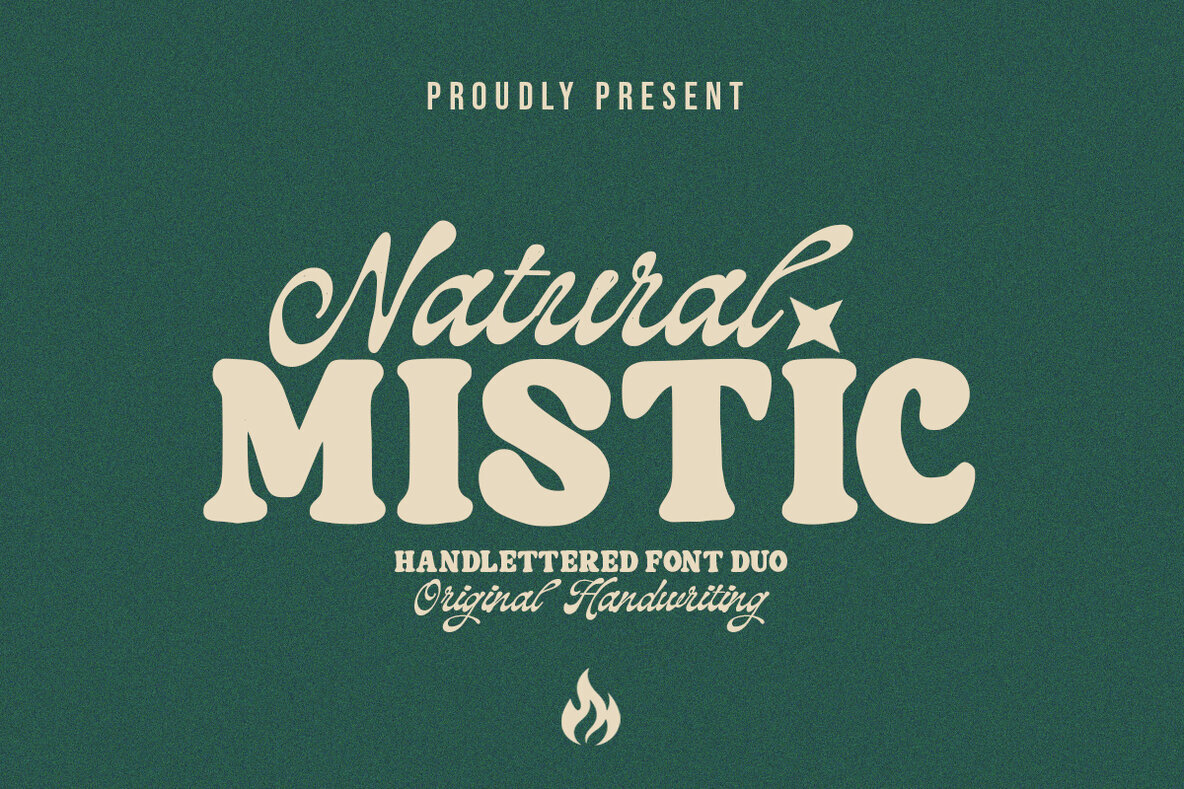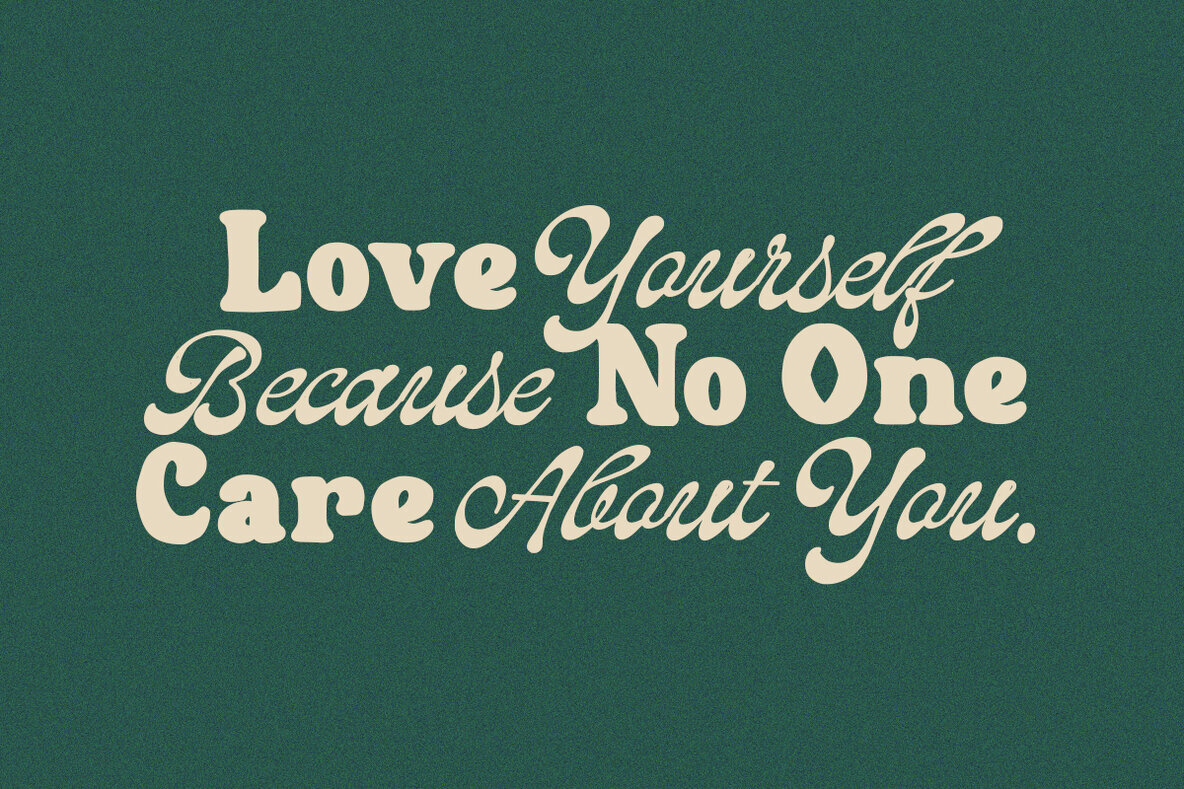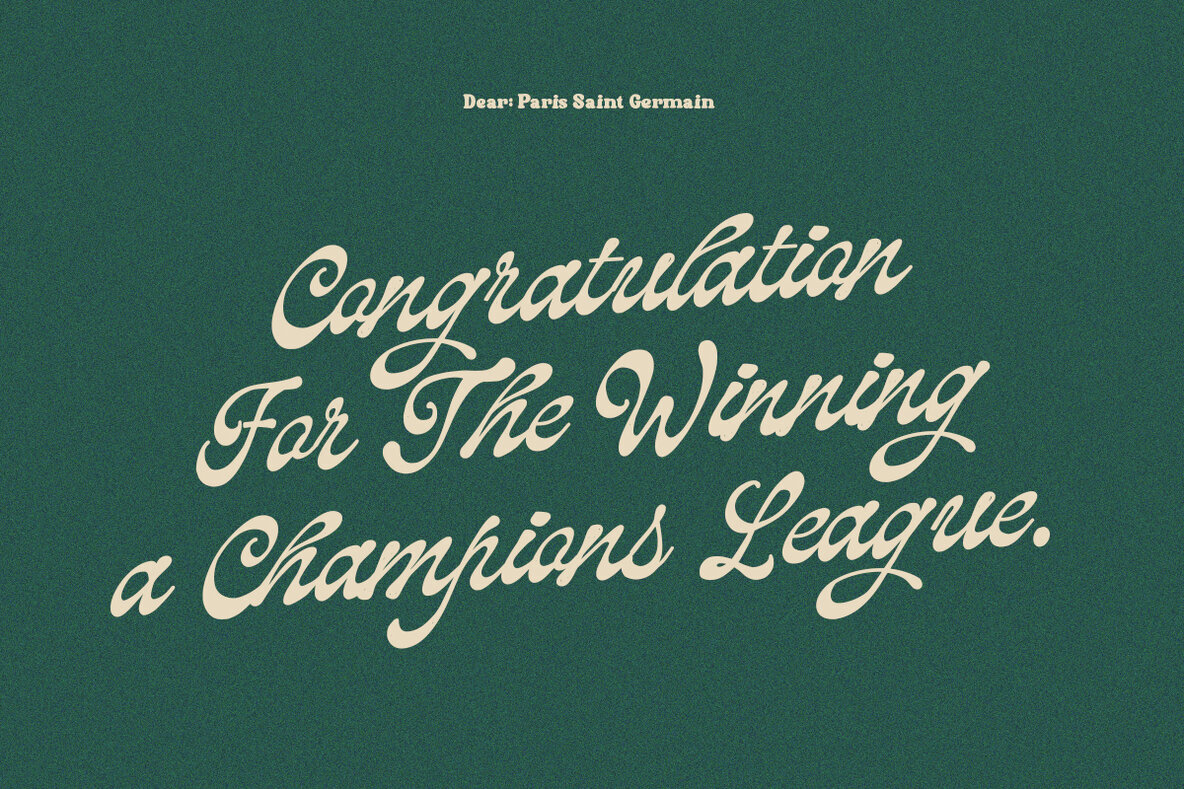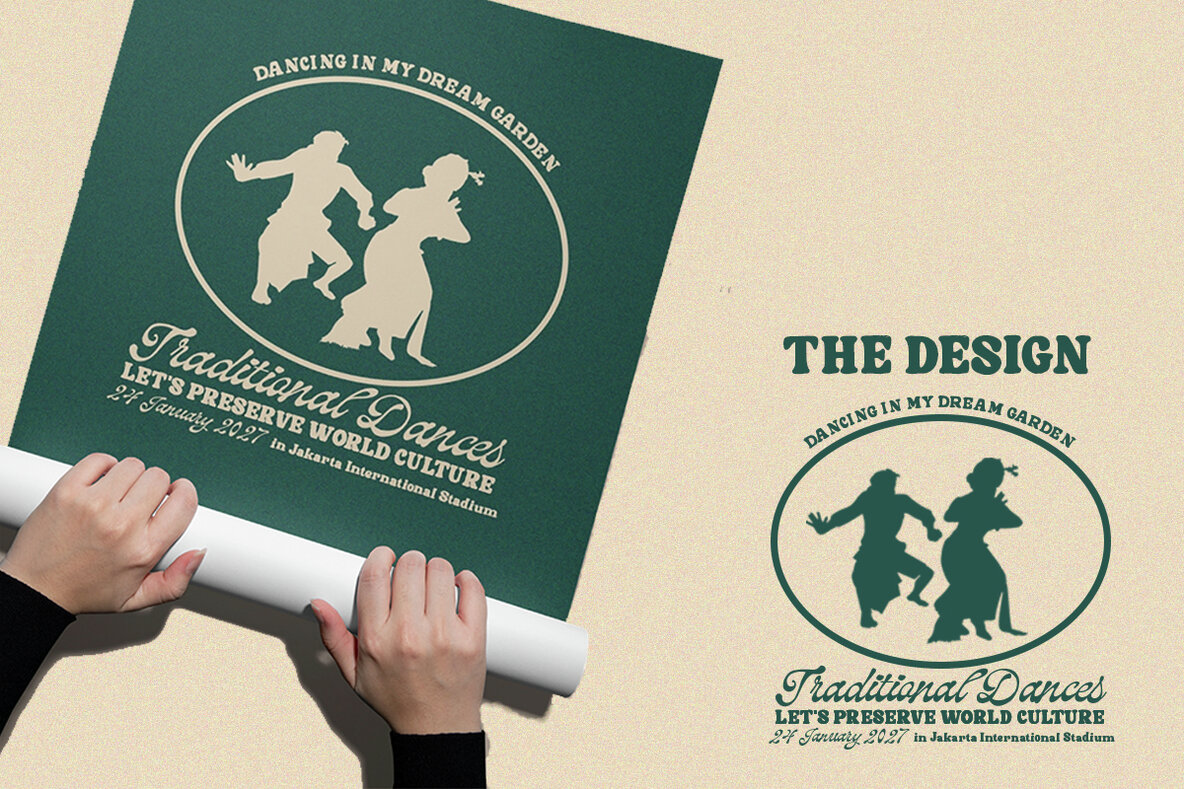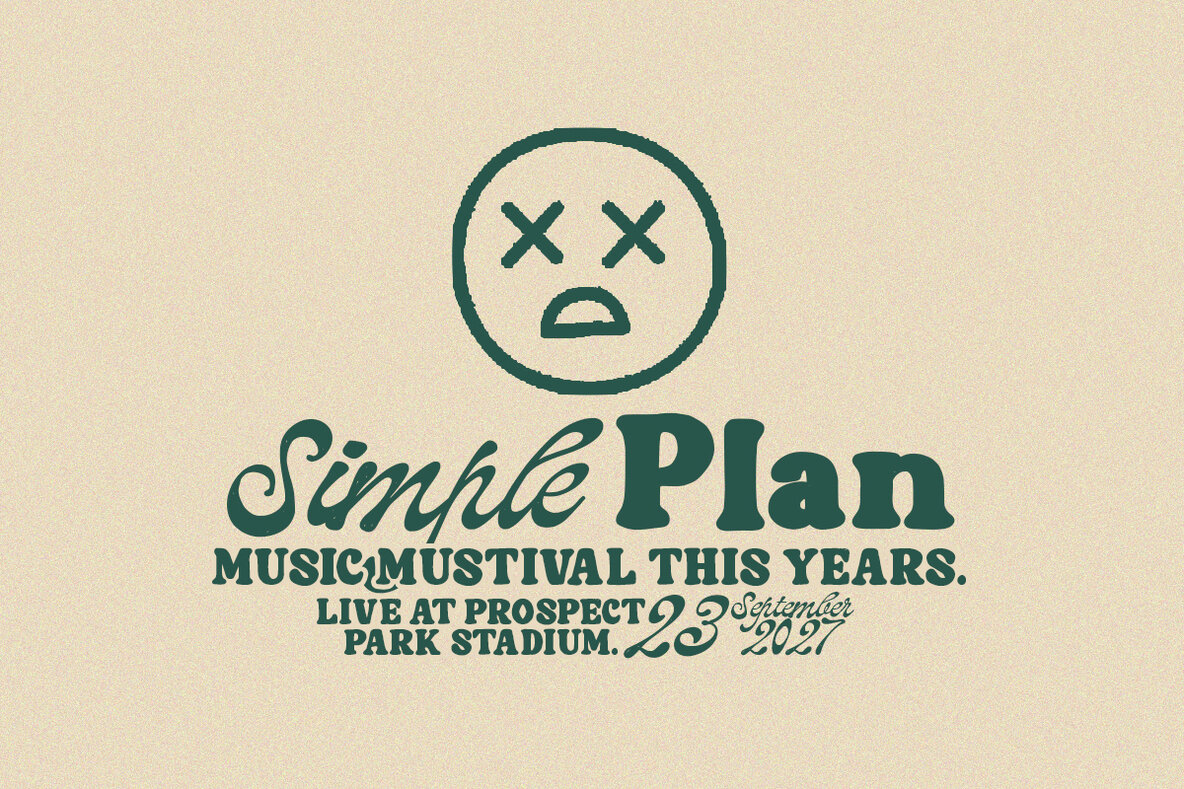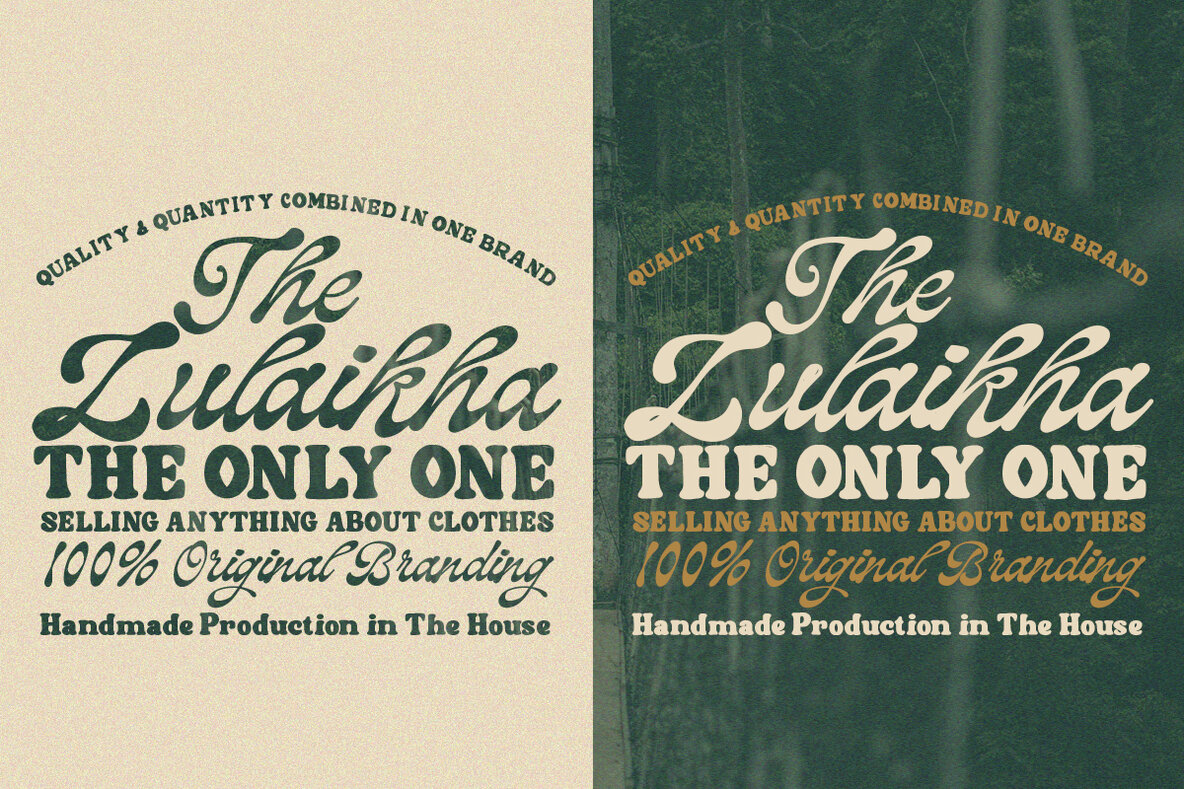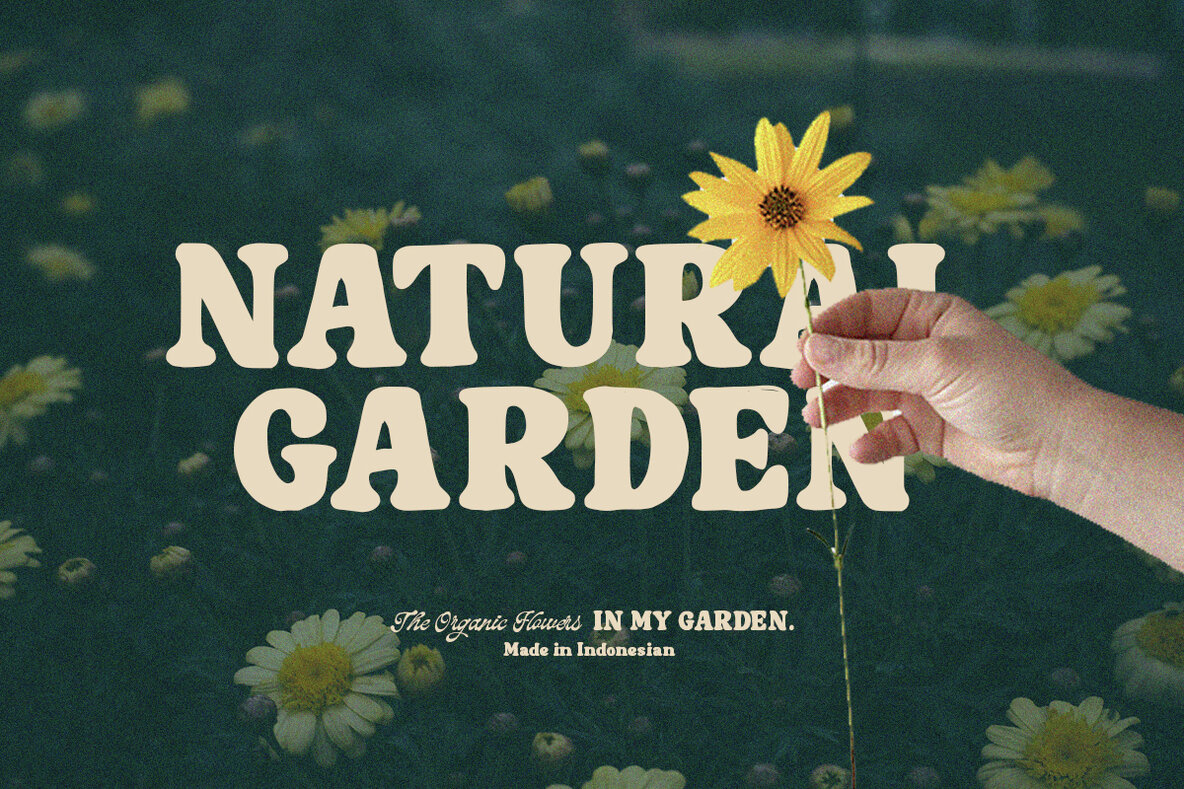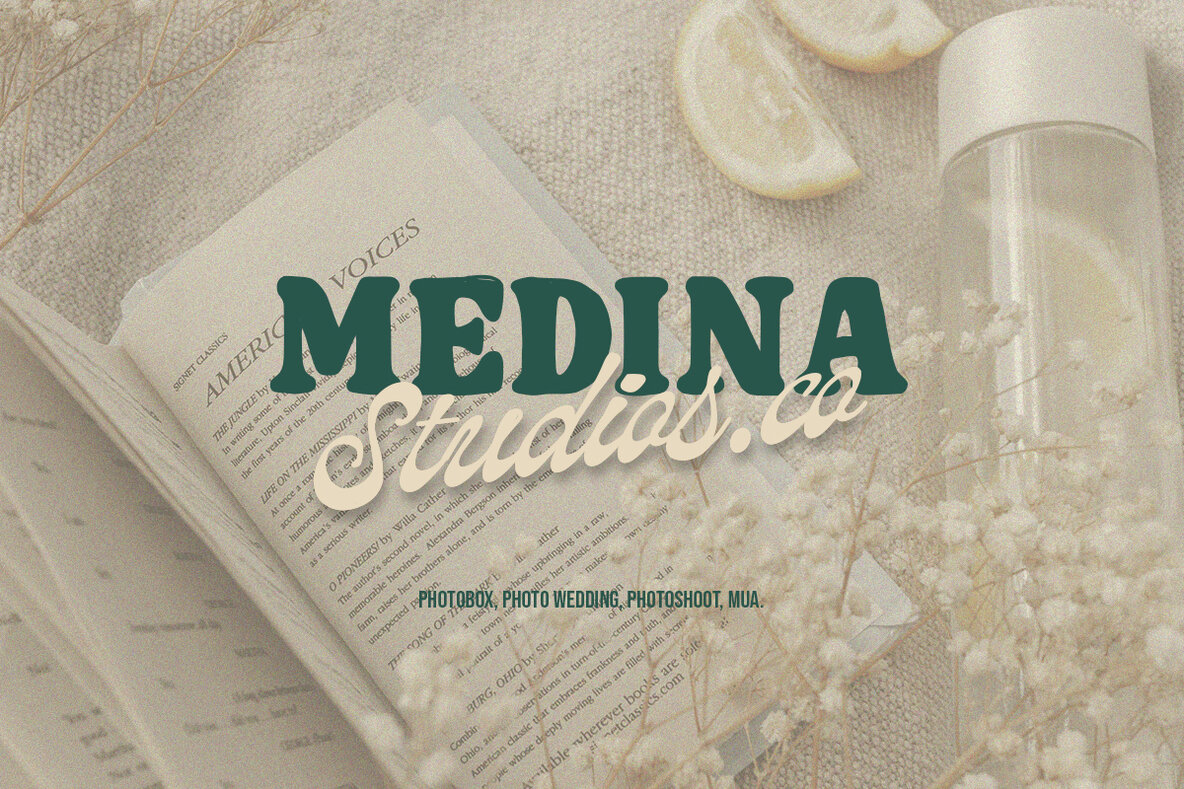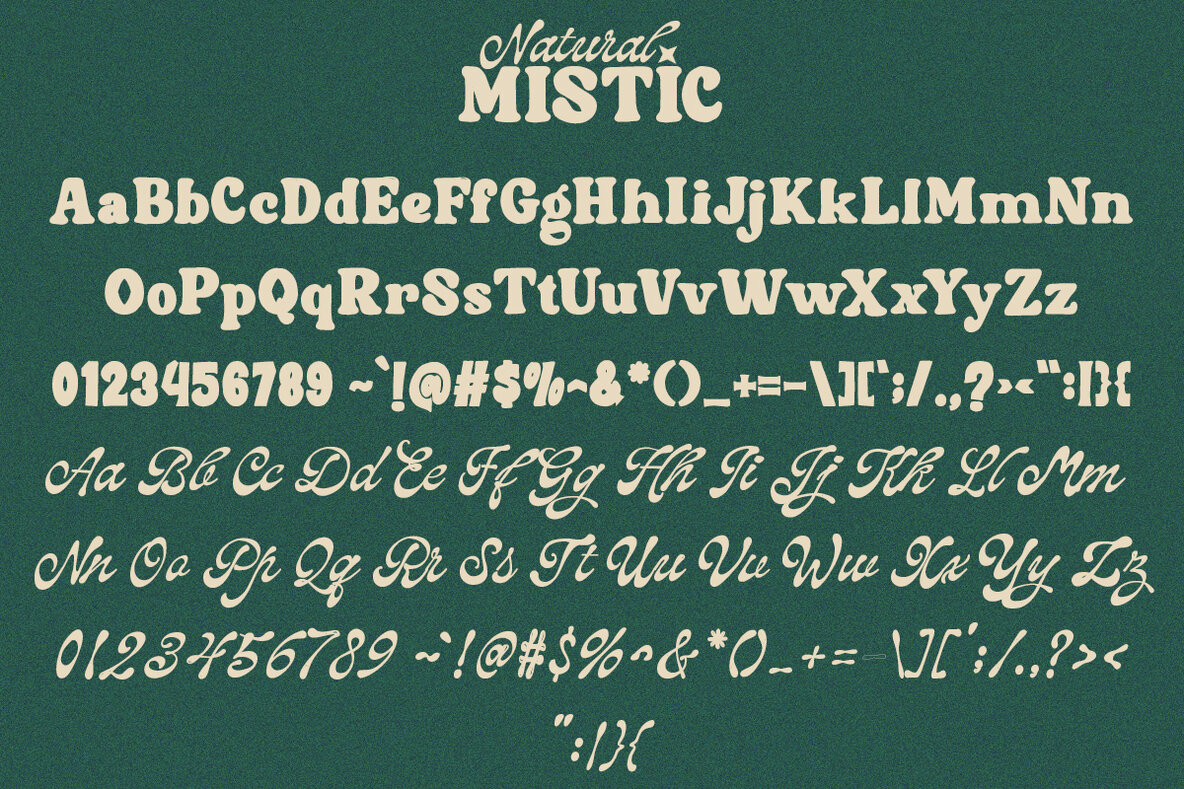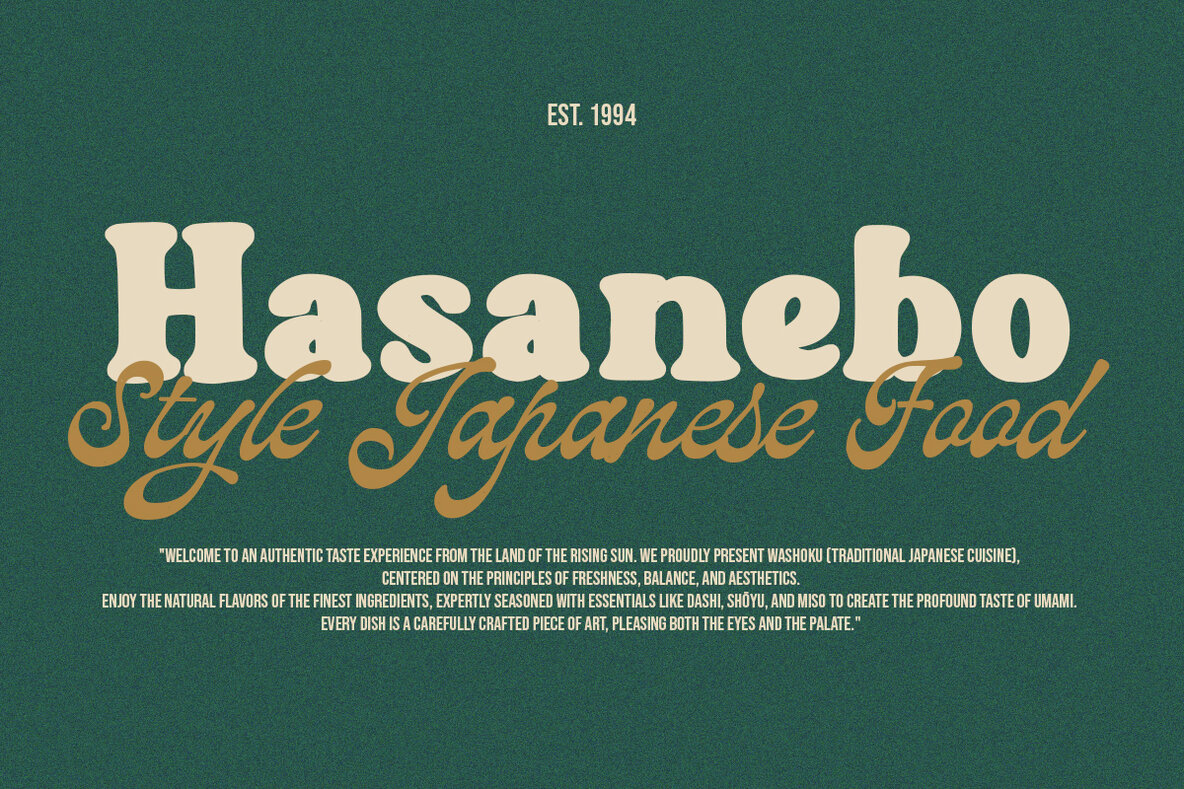
Natural Mistic Font
Natural Mistic stands as a handlettered font duo that marries vintage allure with a contemporary touch. Its robust, versatile presence is perfect for those seeking an authentic feel in their design pursuits. Natural Mistic (Display) captivates with its bold and groovy bubble-style, harking back to a 1970s retro aesthetic. Featuring soft, rounded edges and playful accents like star motifs, this typeface ensures your design will catch the eye and evoke a sense of nostalgia. Complementing the display type is Original Handwriting (Subtext), an elegant cursive script that contrasts notable soft edges with a personal, handcrafted flair—it lends an authentic touch to every project. Natural Mistic's versatile nature makes it ideal for a range of applications, including:Natural Mistic: A Bold Handlettered Font Duo
This font duo provides a striking retro or artisan aesthetic, bringing a timeless charm to your creative endeavors.